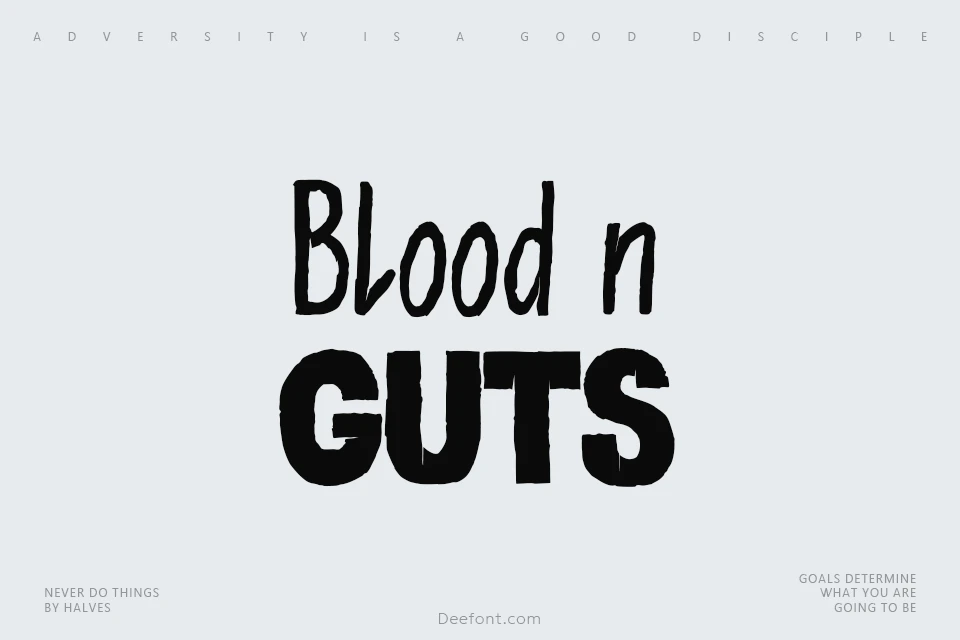
Blood’n’guts Font
Blood'n'guts Font is a rugged and bold typeface inspired by vintage war and action comics from the 1950s. Its hand-crafted design features distressed, jagged edges that evoke a sense of intensity and chaos, making it perfect for projects with a gritty or adventurous theme. The font includes two styles, "Title" and "Regular," which are ideal for headlines, captions, or dramatic text blocks. With its dynamic and attention-grabbing appearance, Blood’n Guts is well-suited for horror posters, edgy branding, or retro-themed designs. This versatile font brings a raw and energetic aesthetic to any creative project.